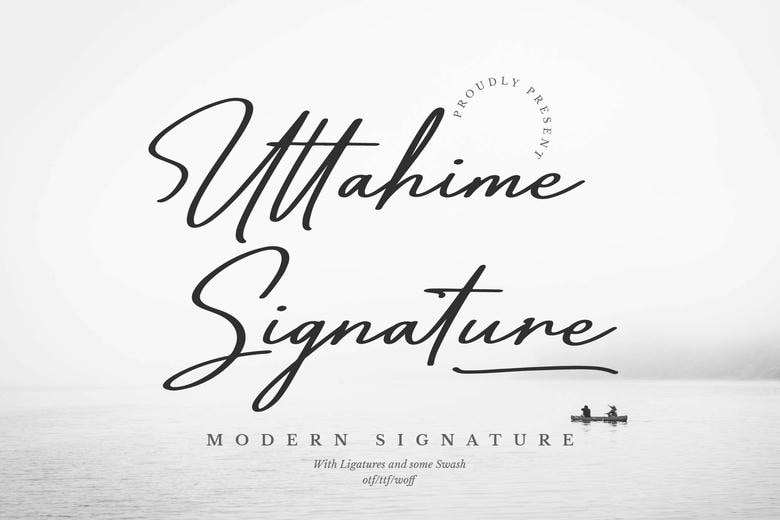
Uttahime Font
Uttahime is a beautiful modern Text fonts which look like handwritten signatures and is suitable for many purposes. It is curvy having flowing lines, ideal for customizing invitations, logos, or any other creativeness related task!
Uttahime Signature Font